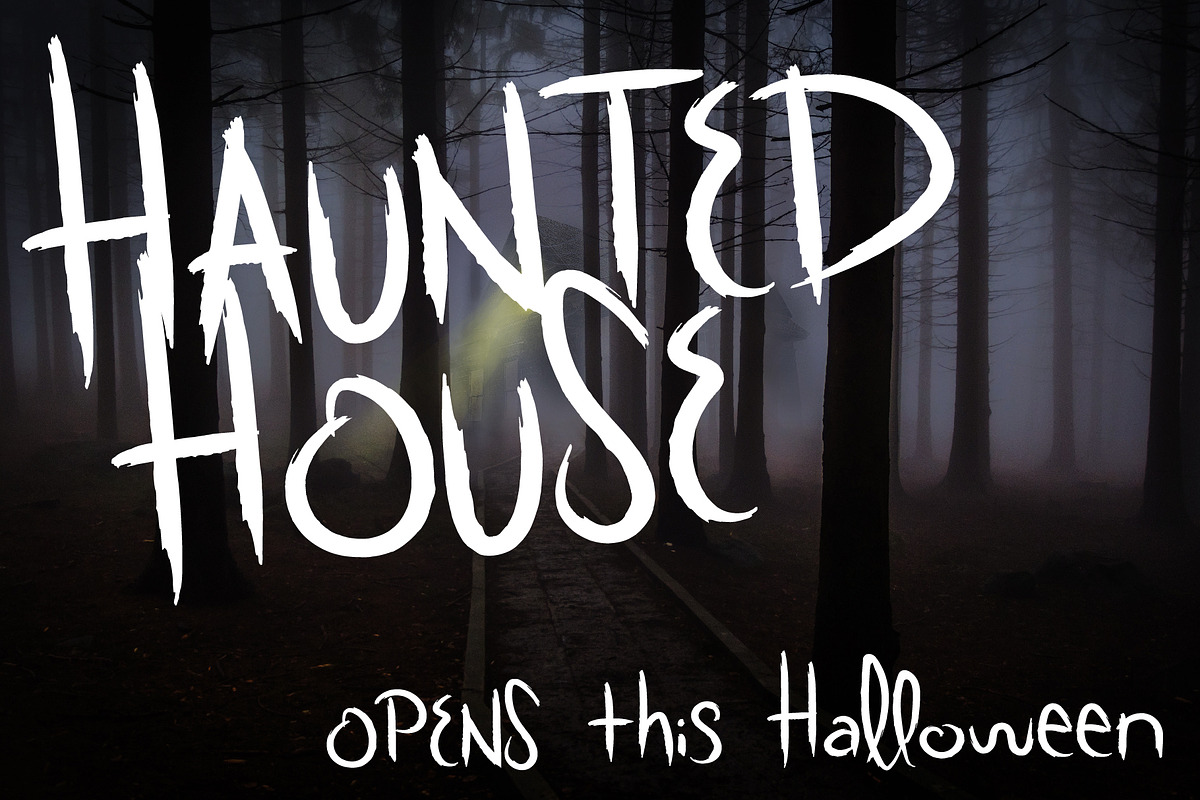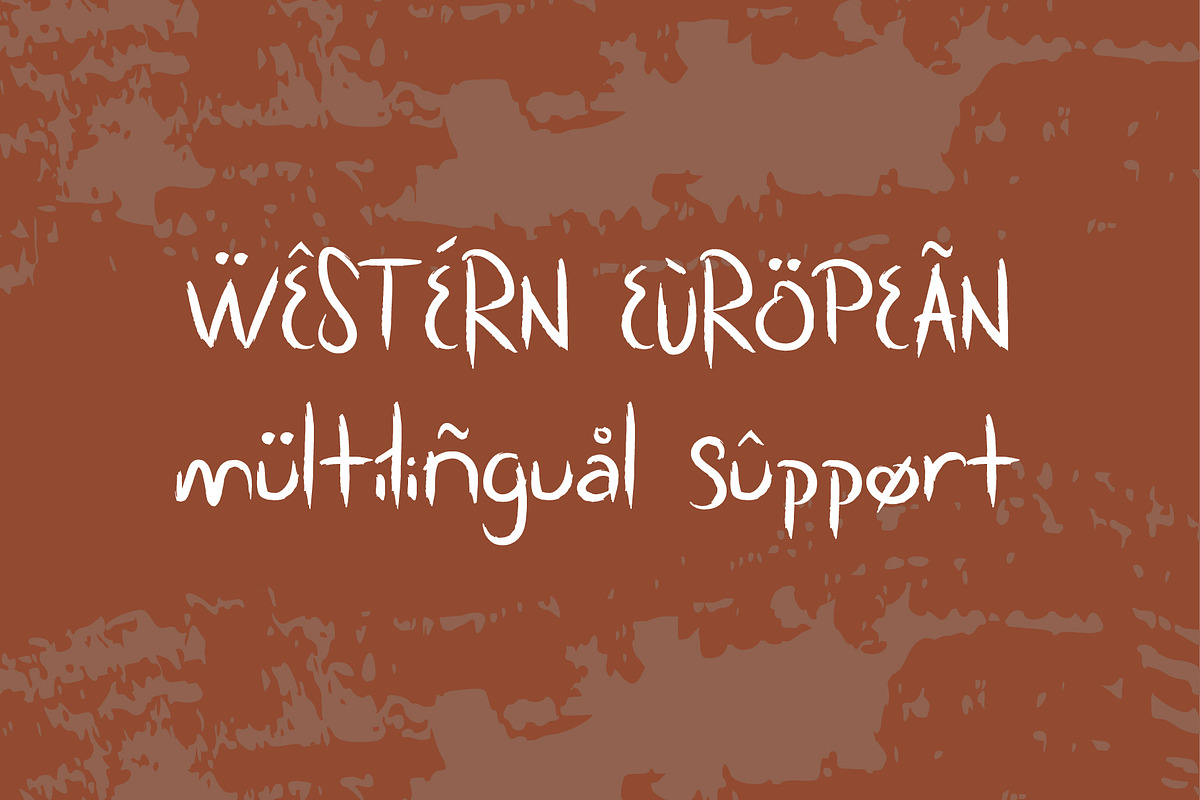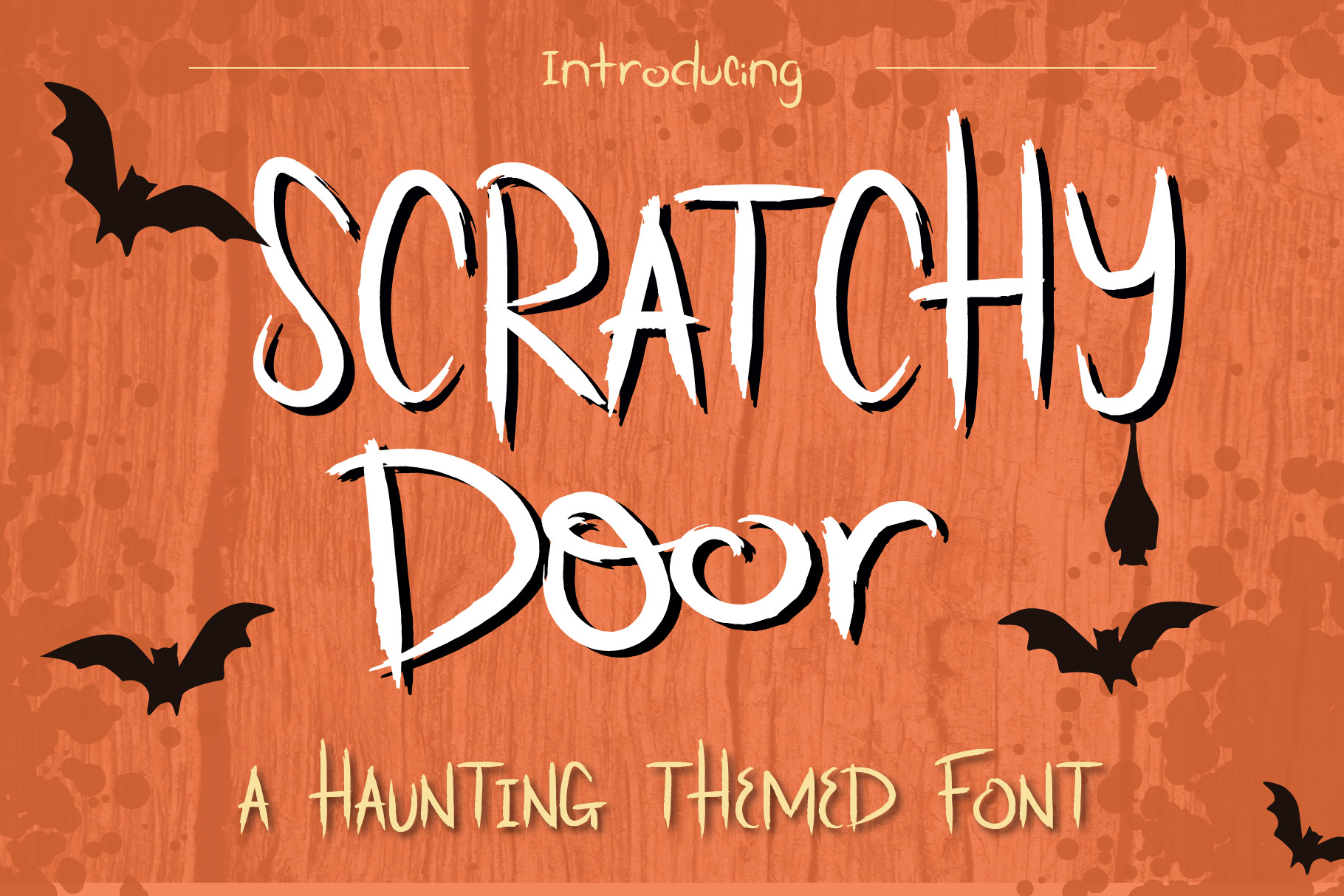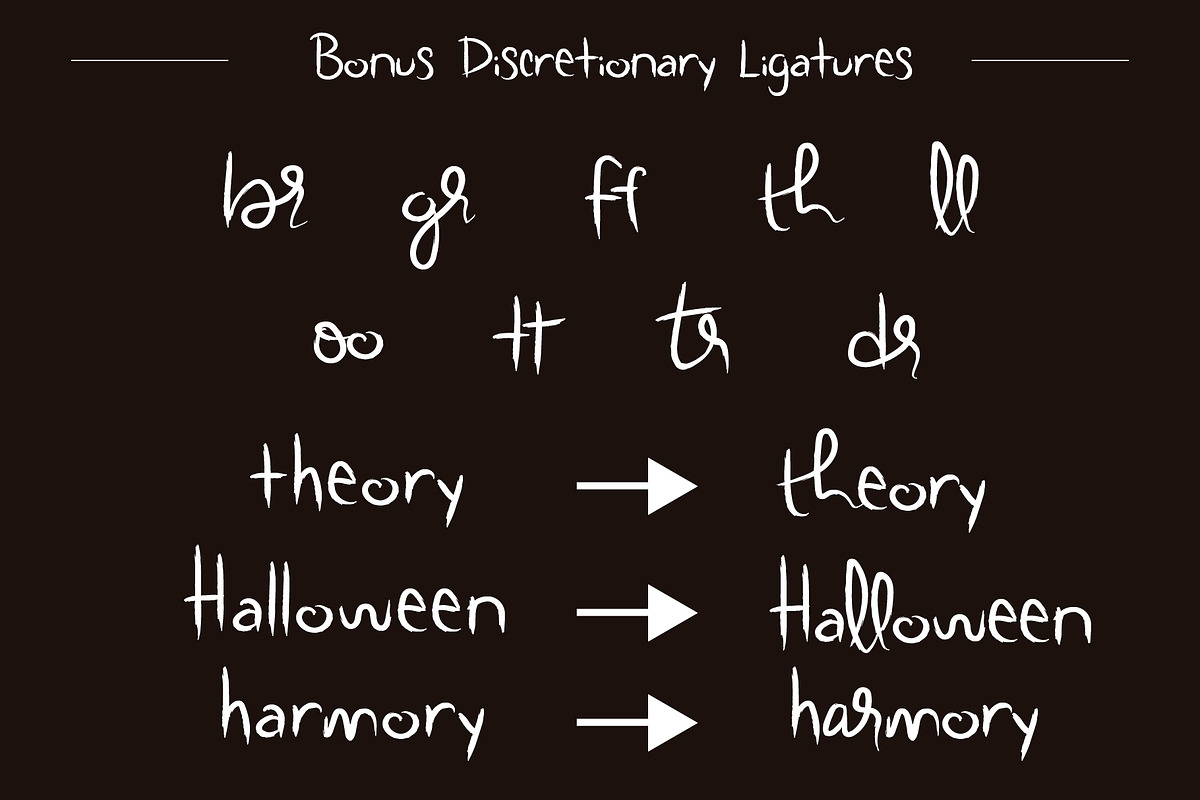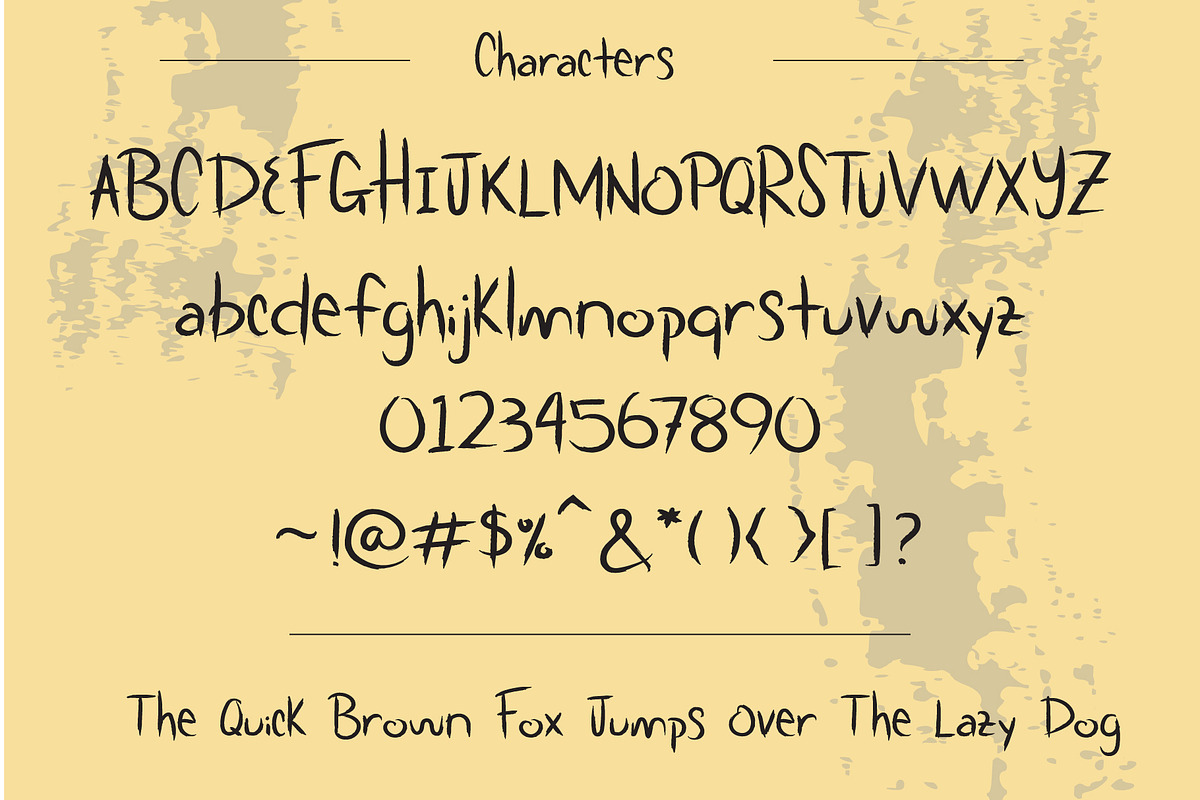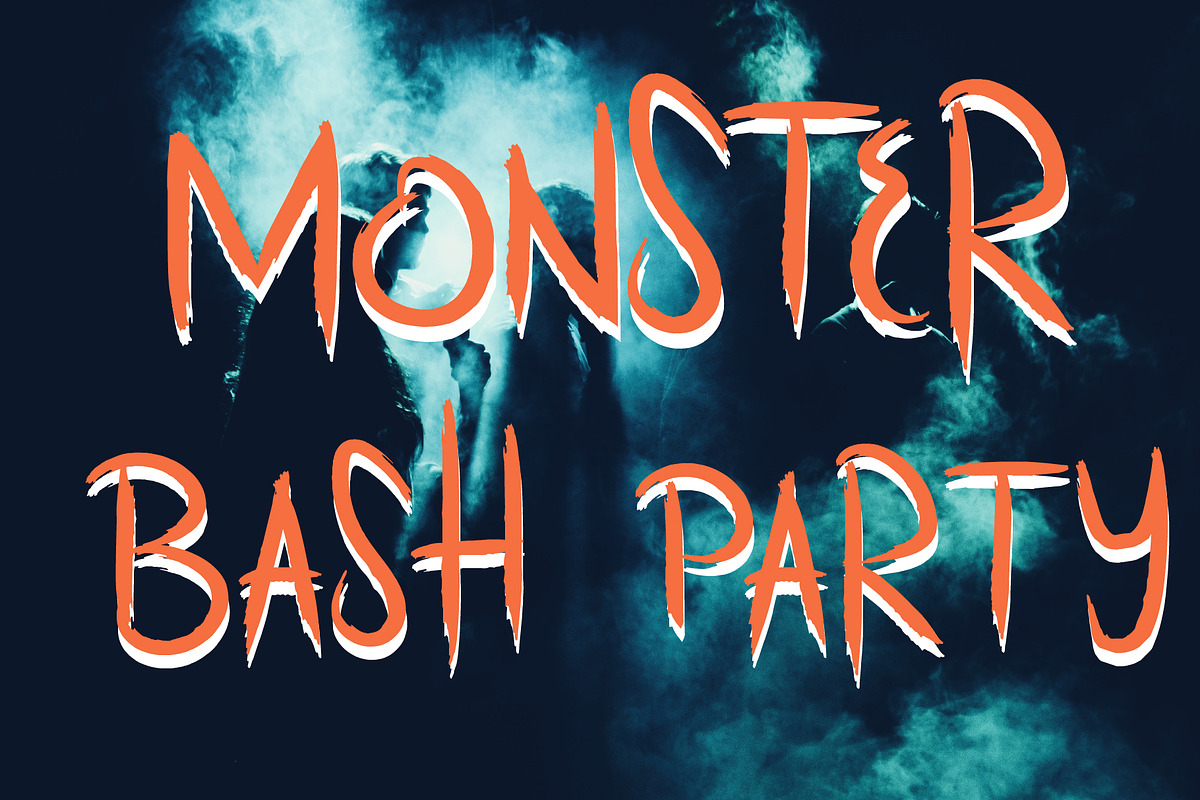
Scratchy Door Halloween Font
Introducing, Scratchy Door. A decorative and crafty Halloween inspired font. Perfect forchildren's book, greeting card, craft projects, etc. This PUA font is perfect for professional designer, social media, or crafters.